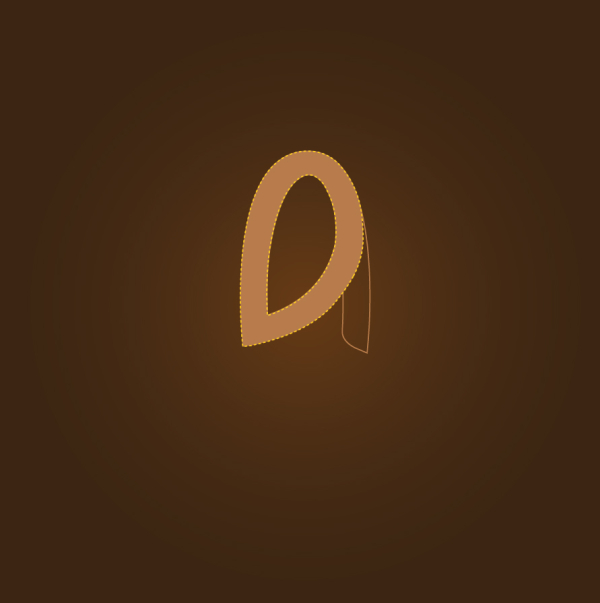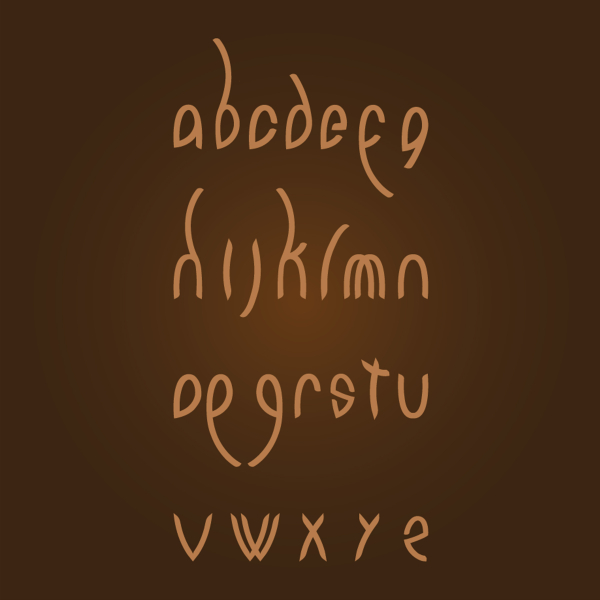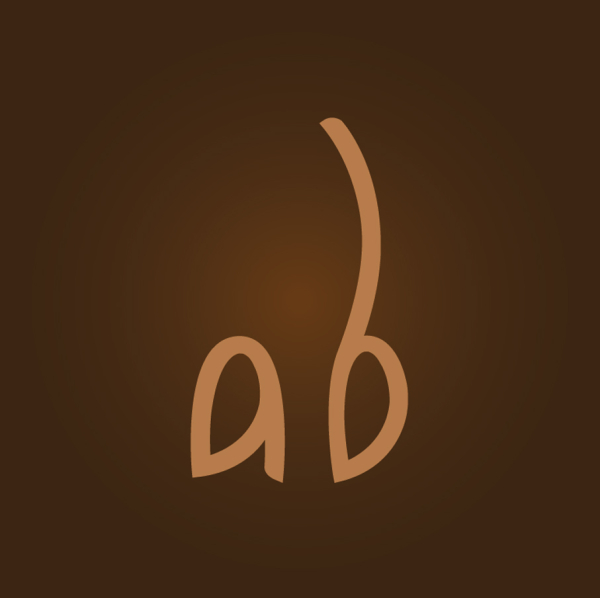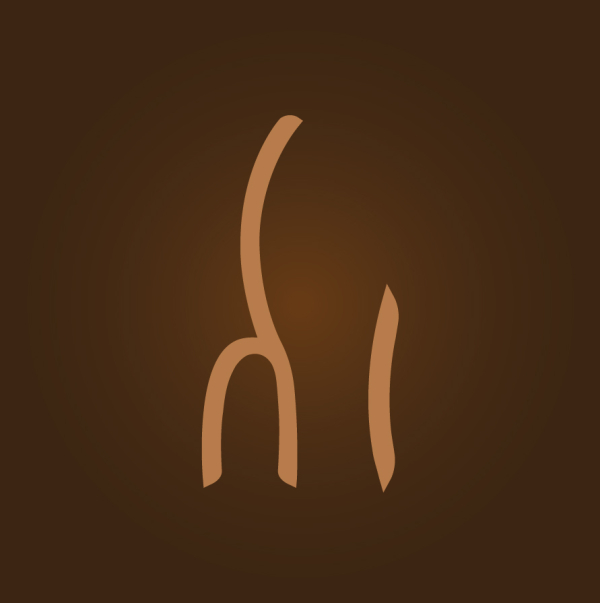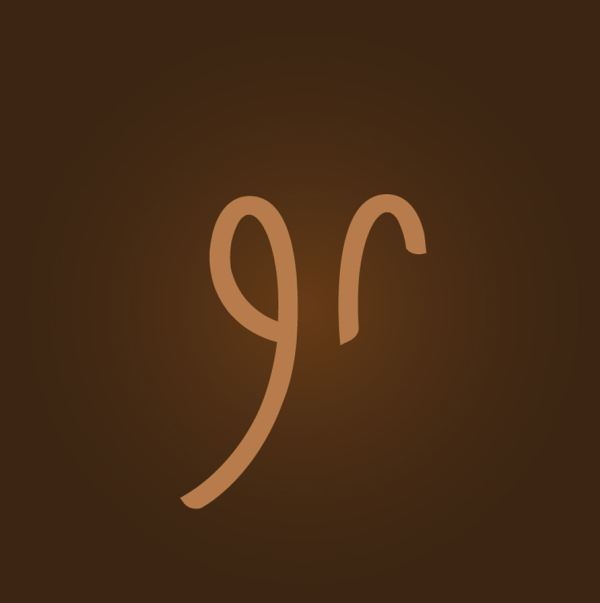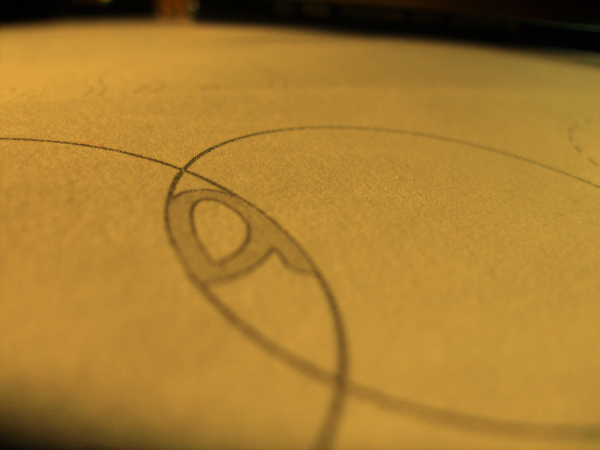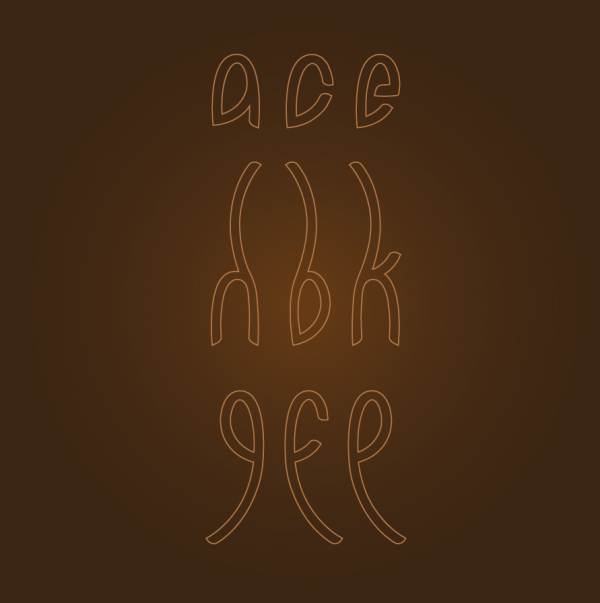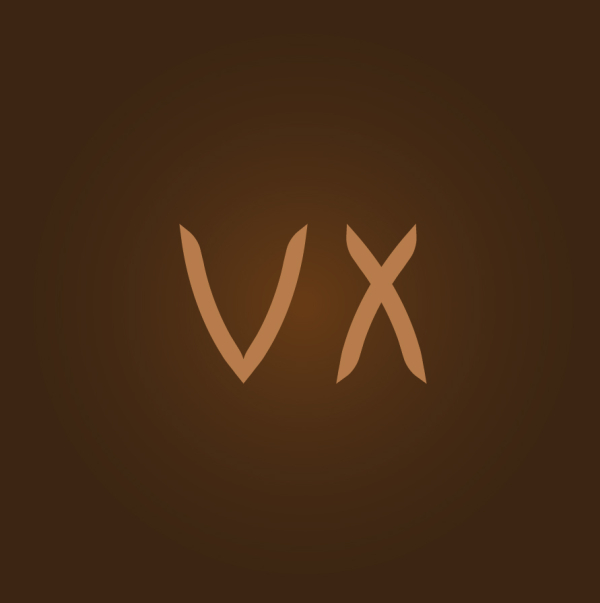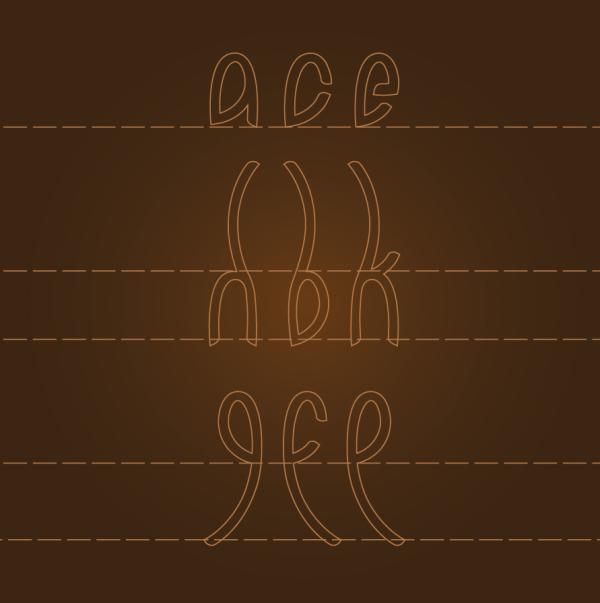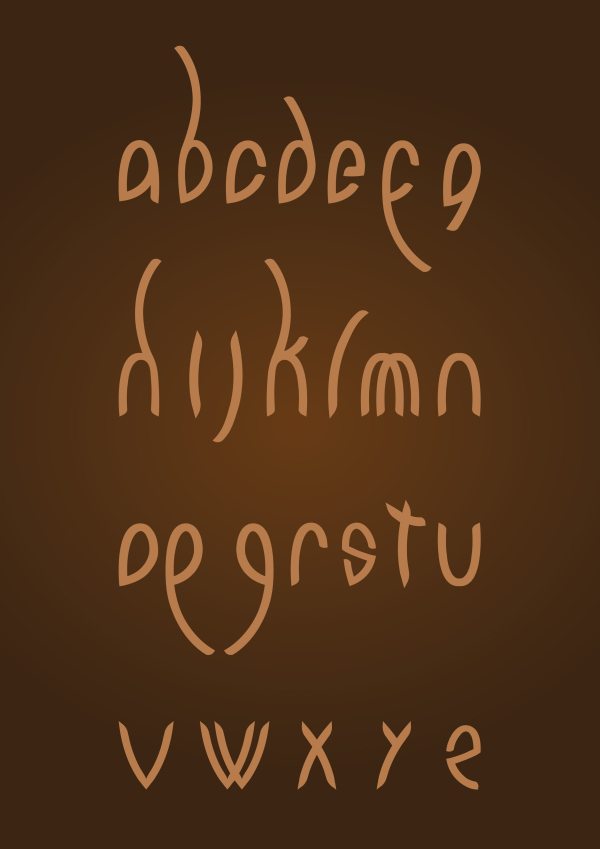
Bandgladesh
inspired by the Bengali alphabet.
Taking features and characteristics of this alphabet, it generated the rest of the alphabet // inspirado en el alfabeto Bengalí.
Tomando rasgos y caracteristicas de este alfabeto, se genero el resto del abecedario.